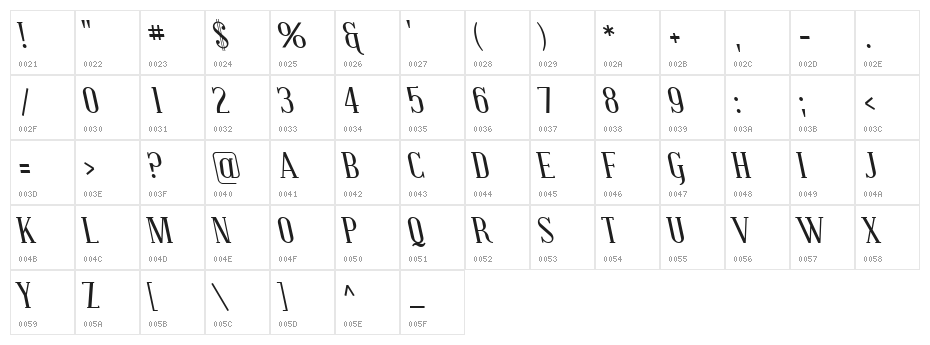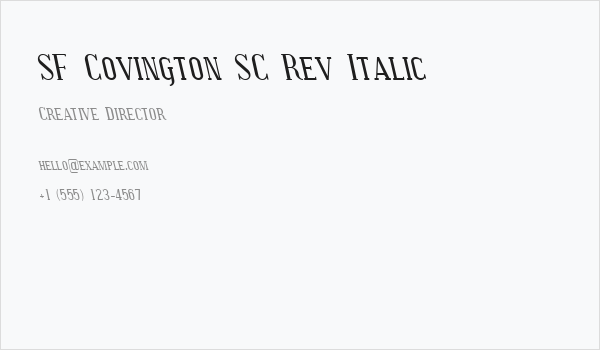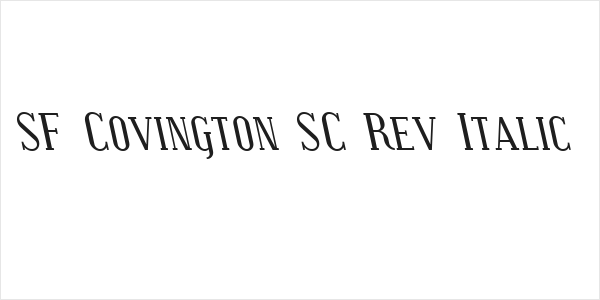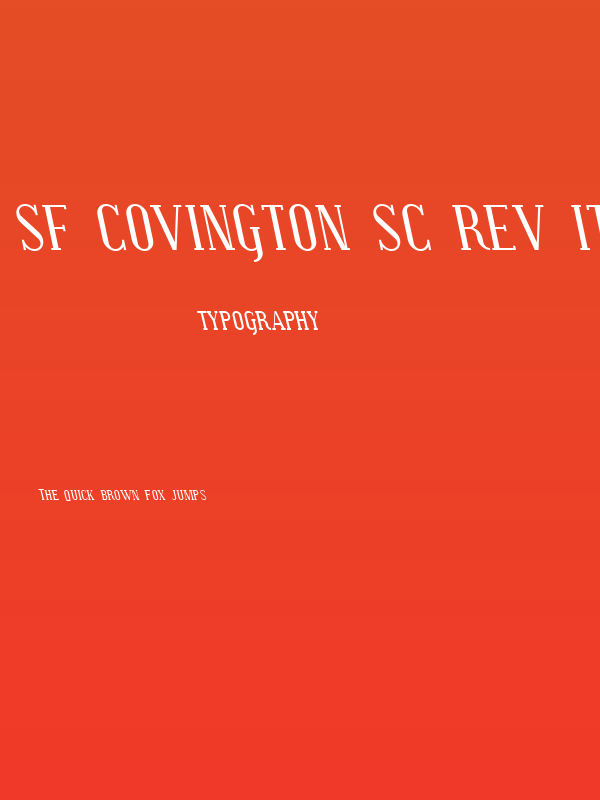
SF Covington SC Rev Italic Font
This font features a classic serif style with a modern twist, characterized by its elegant and slightly condensed letterforms. The italicized nature adds a dynamic and sophisticated flair, making it suitable for both formal and creative applications. The uppercase letters are tall and commanding, while the lowercase letters maintain a balanced and readable appearance. Numbers and special characters are designed with the same attention to detail, ensuring consistency across all elements. The font's high contrast between thick and thin strokes enhances its readability and visual appeal.
| Proposed Projects | Ideal for editorial design, book covers, branding, and elegant invitations. |